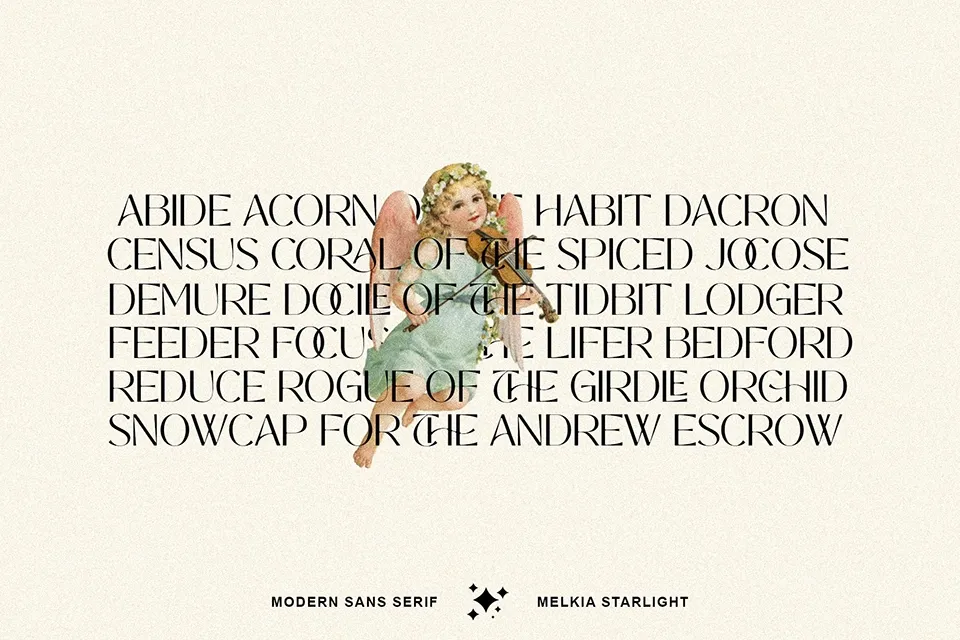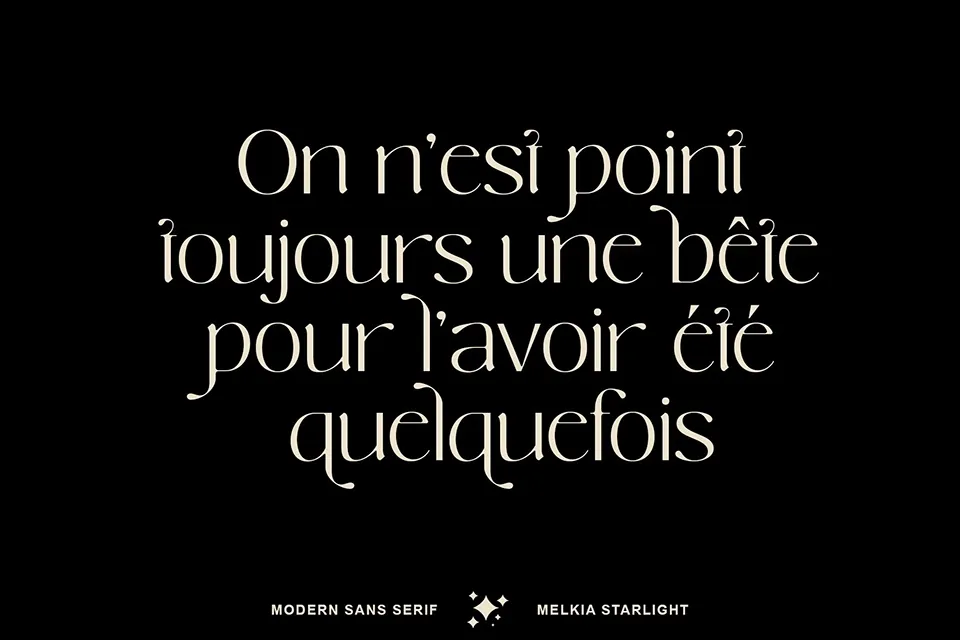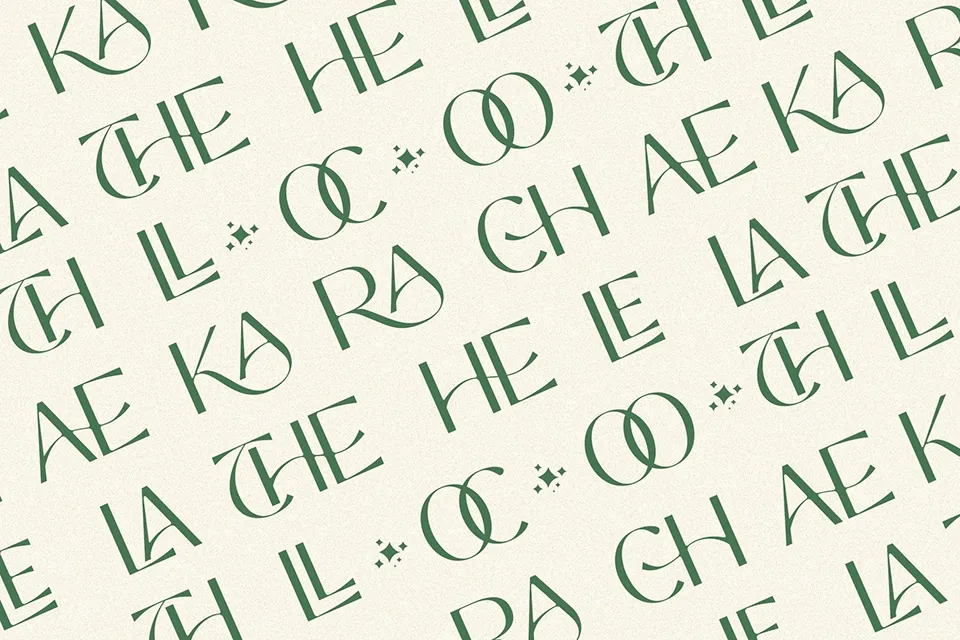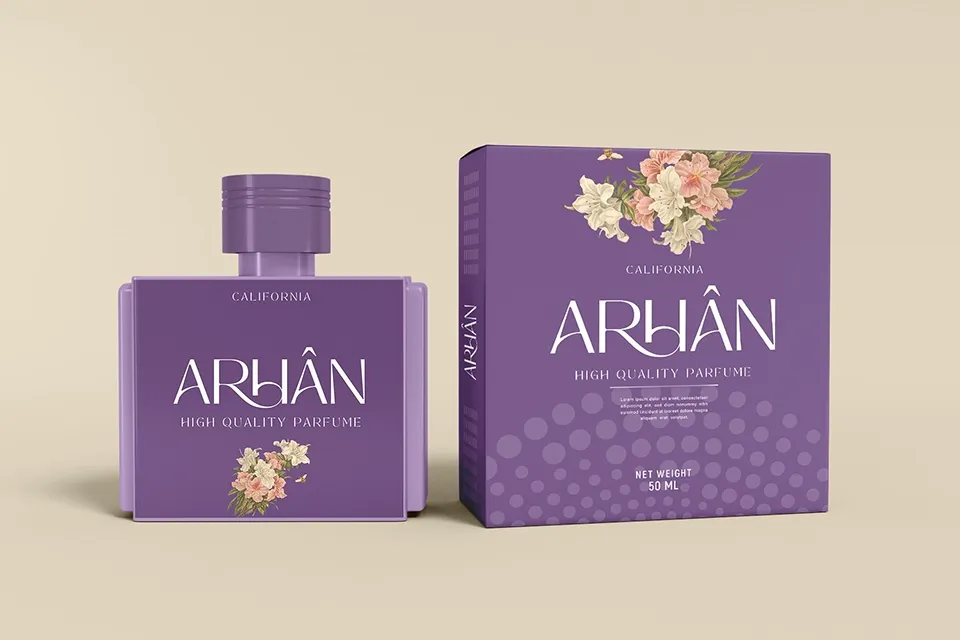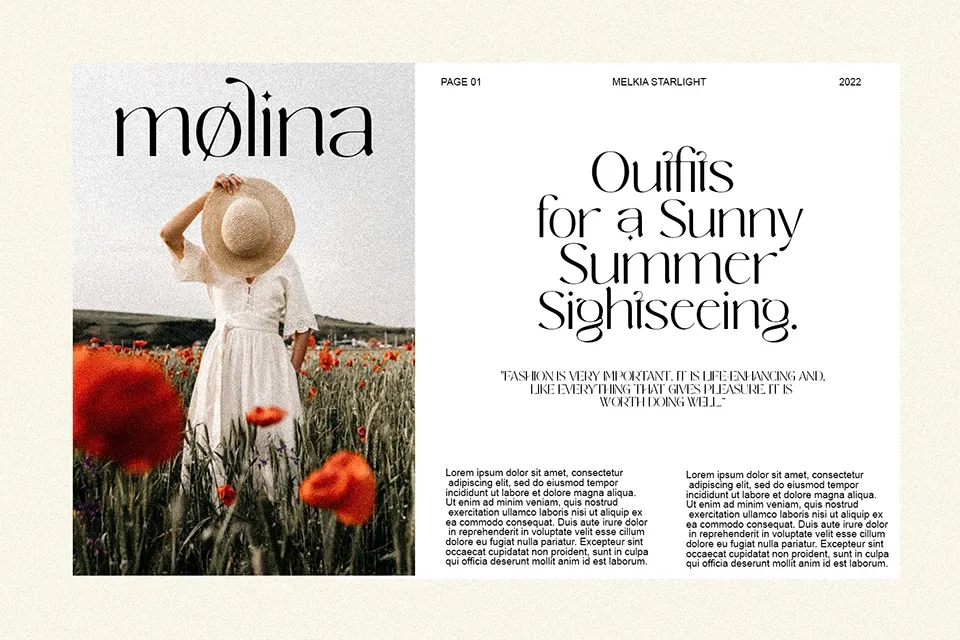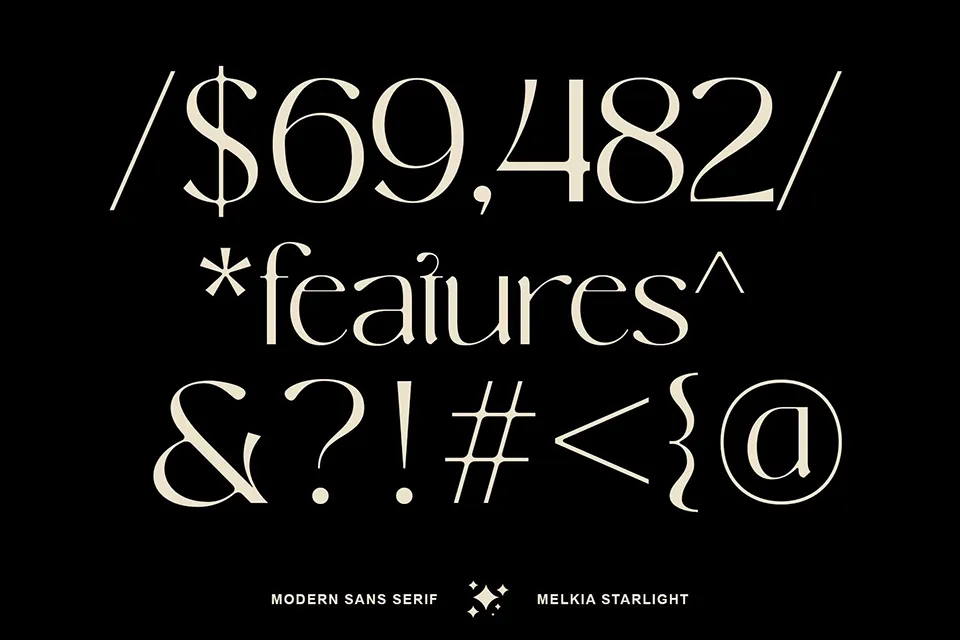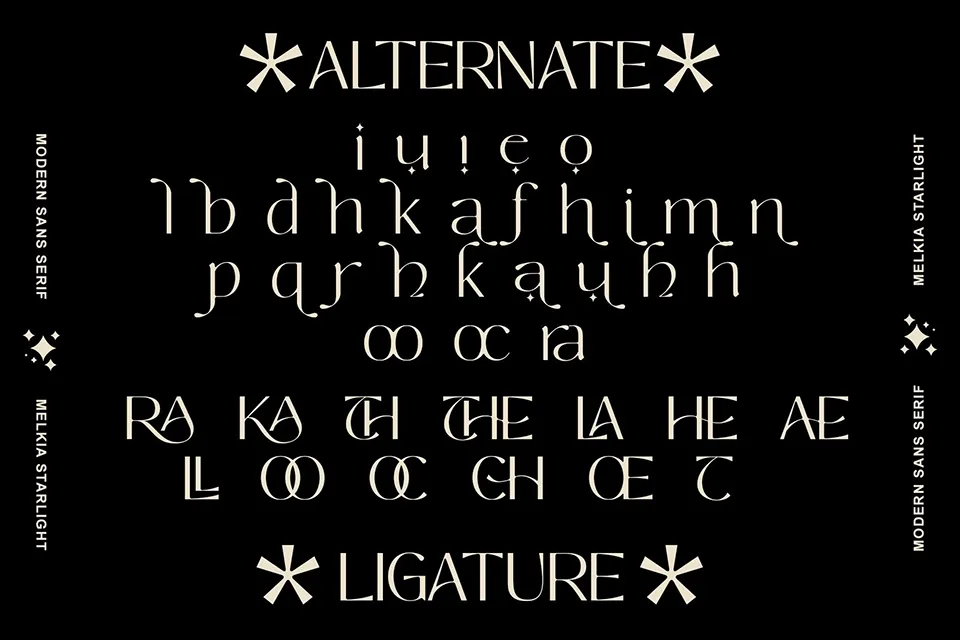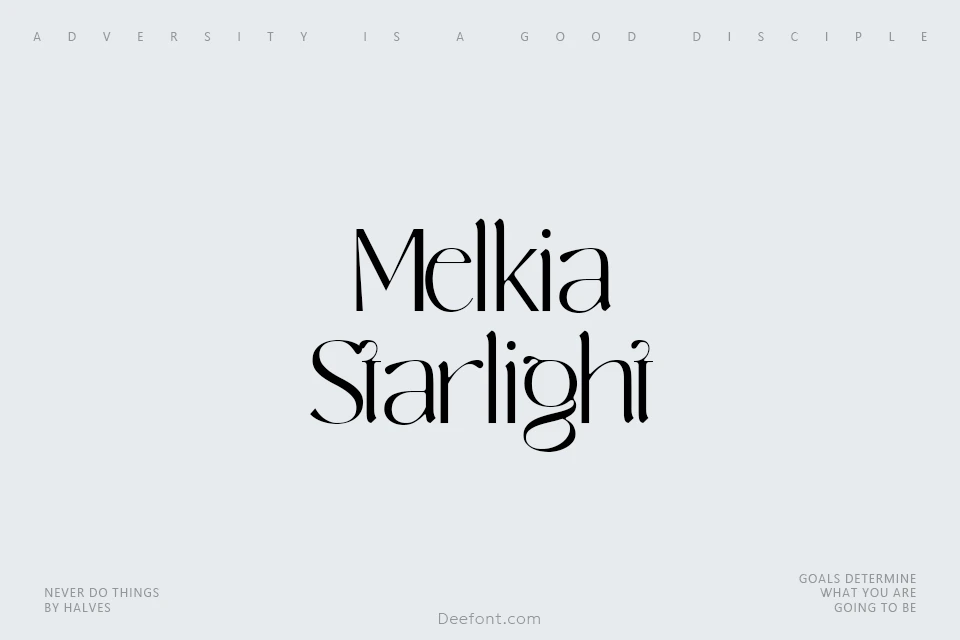
Melkia Starlight Font
Melkia Starlight Font is a captivating modern sans-serif typeface that blends elegance with a touch of celestial charm. Its sleek and sophisticated letterforms are enhanced by unique decorative details, such as star-like accents and graceful curves, making it ideal for luxurious branding, editorial designs, wedding invitations, and creative displays. Melkia Starlight exudes a refined yet whimsical aesthetic, perfect for projects that require both modernity and artistic flair. The font’s versatility shines in both bold headlines and intricate text compositions, ensuring your designs stand out with a polished and enchanting look. Elevate your creations with the stellar beauty of Melkia Starlight Font!